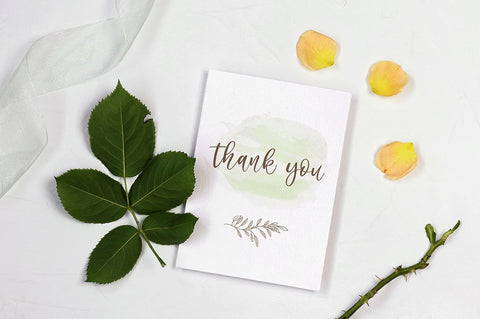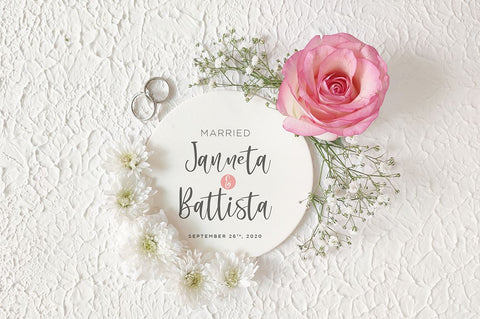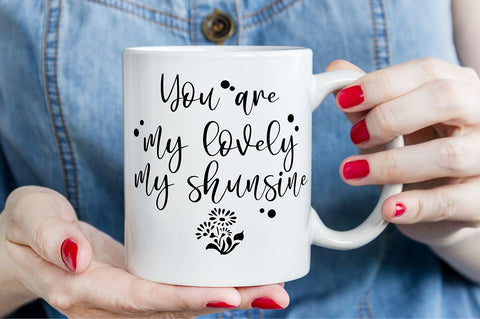
Jasmine Sheffield a Chic Sensual Script
Jasmine Sheffield Sensual Chic Modern Calligraphy
Introducing the elegant Jasmine Sheffield Script Font! If you are needing a touch of casual chic calligraphy for your designs, this font was created for you!